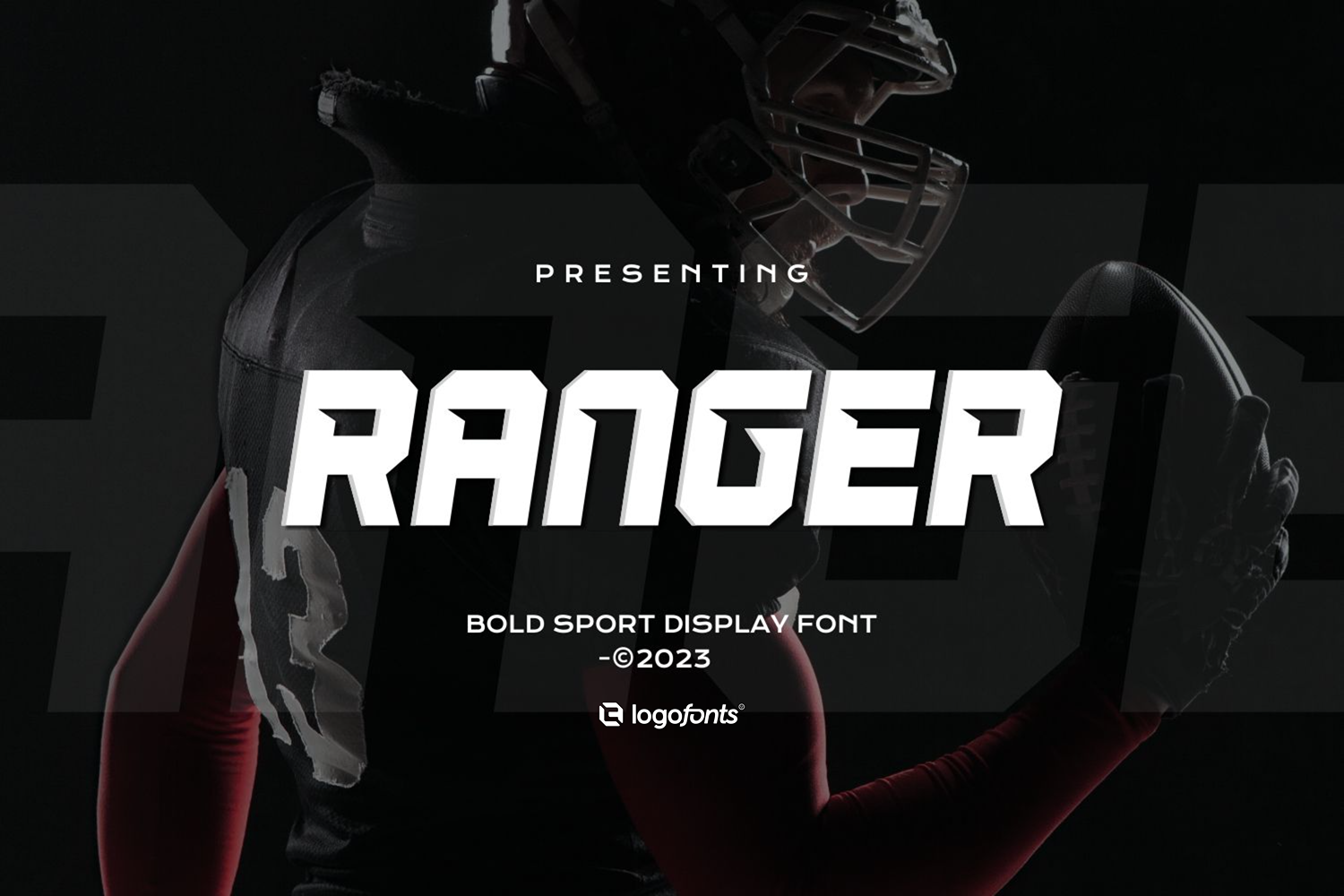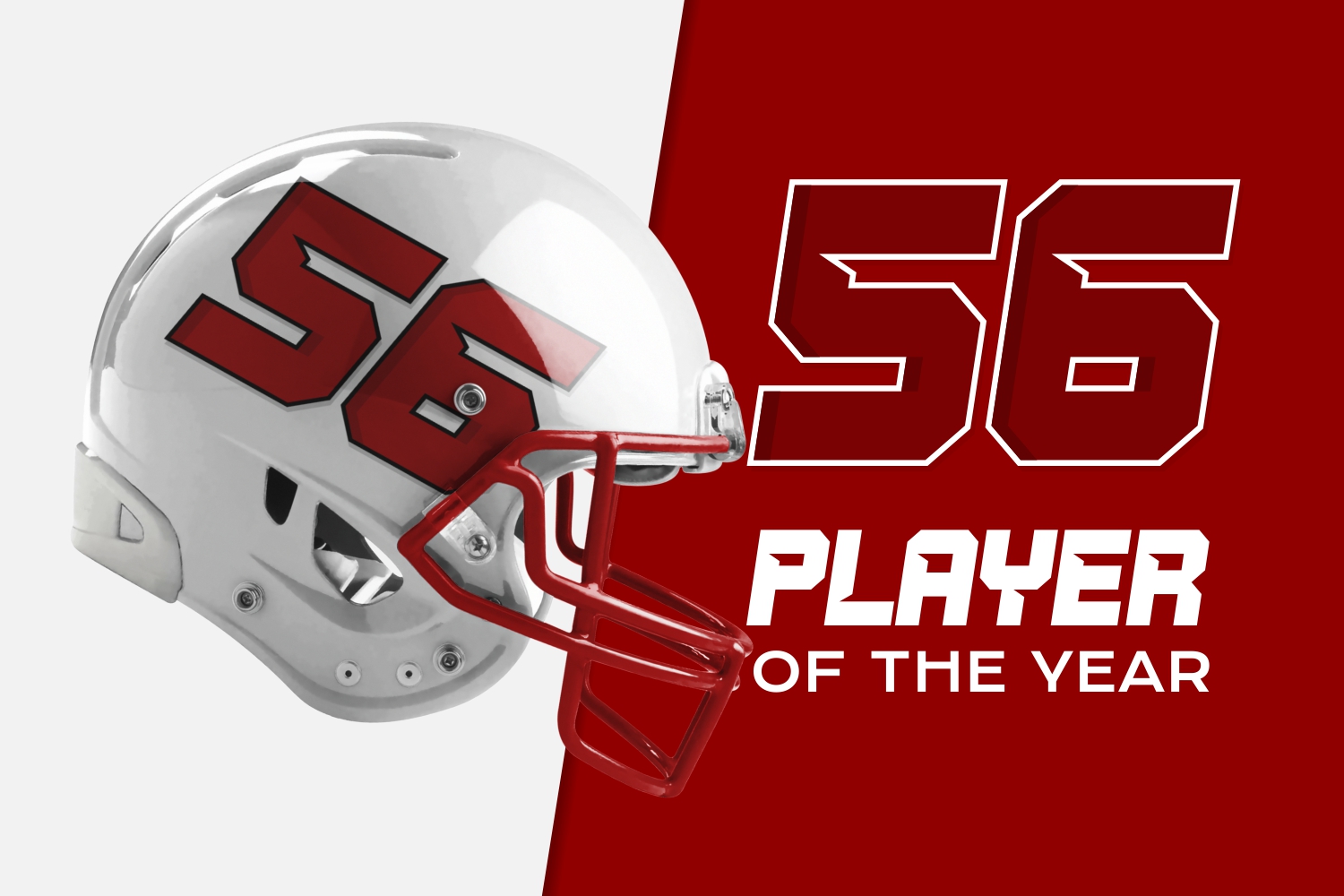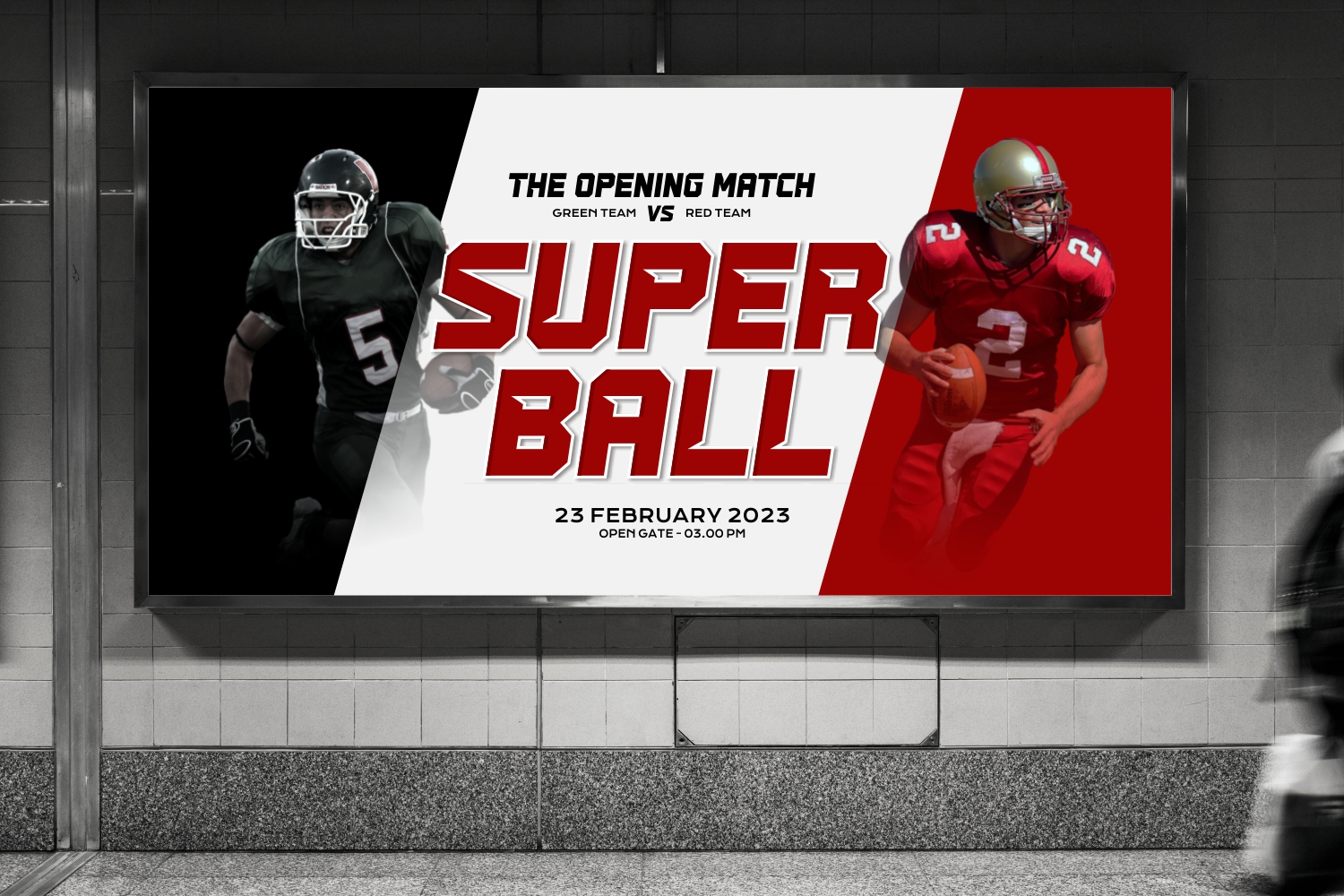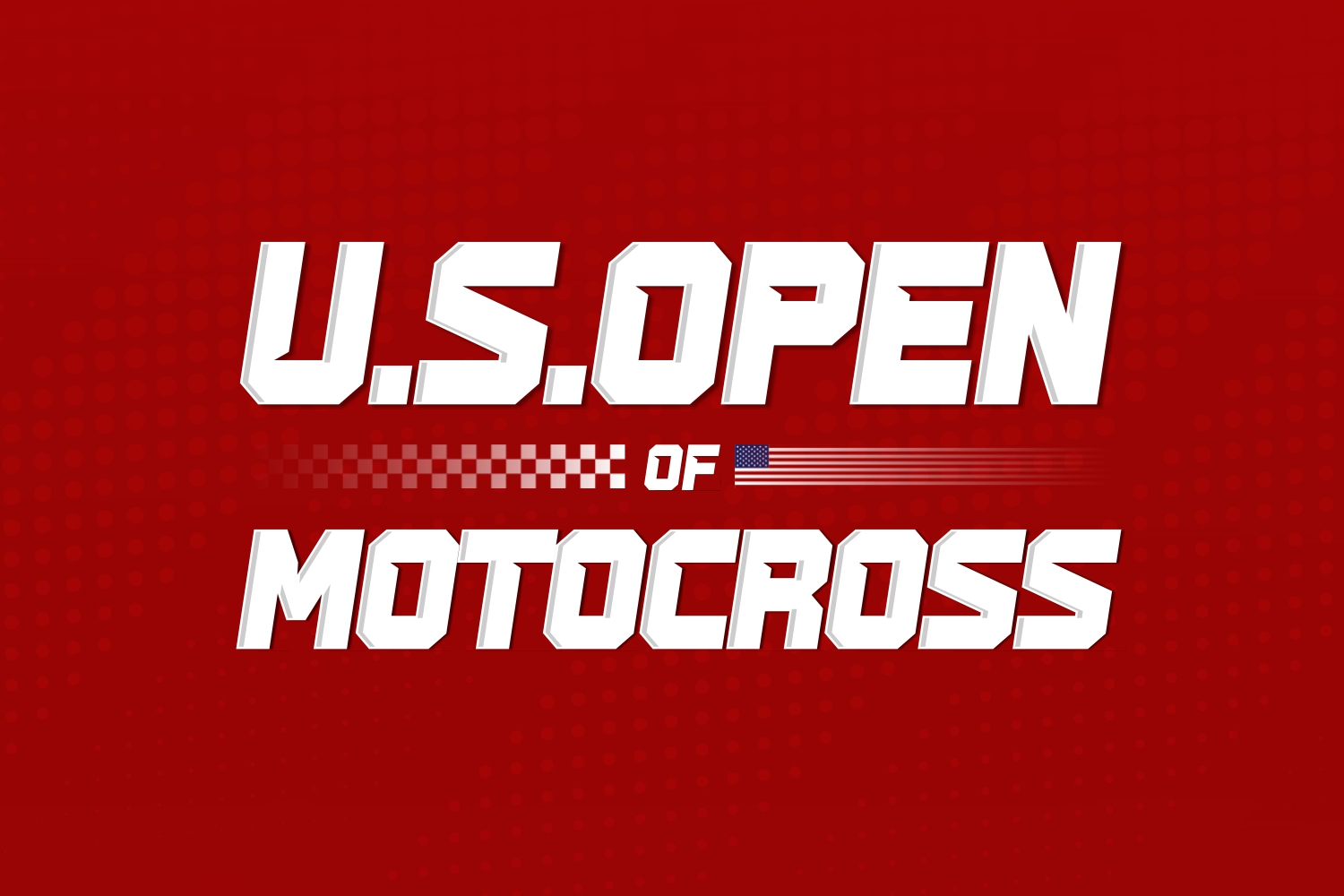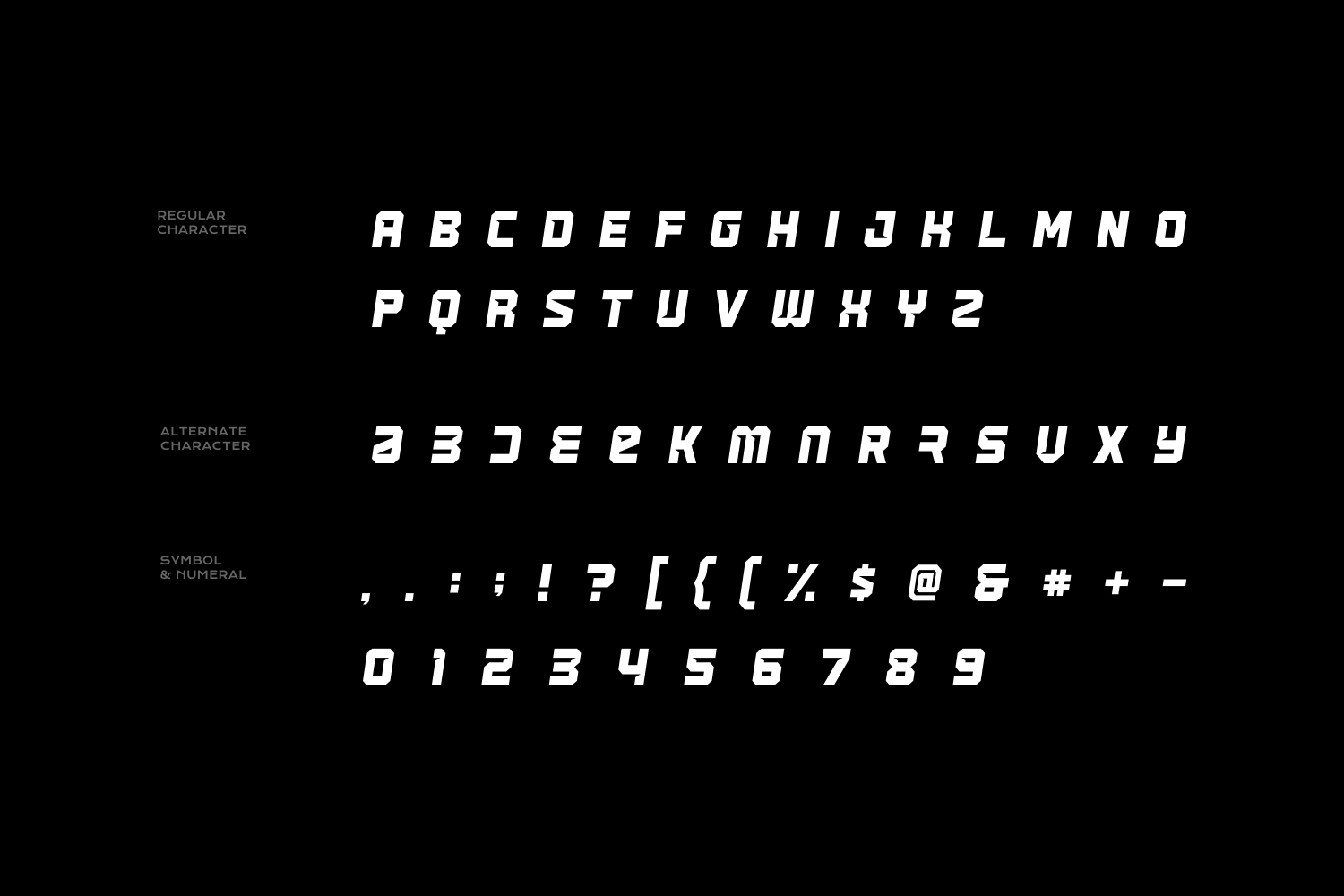
Ranger is a bold, all-caps sport display font designed for high-impact visuals and energetic branding. With its strong angular cuts, geometric construction, and sharp edges, Ranger captures the intensity and power often associated with competitive sports, motorsports, and athletic branding. The font instantly commands attention in posters, jersey numbers, titles, and stadium signage.
Ranger also includes alternate characters, ligatures, and multilingual support, offering flexibility and a wide range of visual options. Its versatile uppercase character set makes it ideal for use in sports team branding, tournament graphics, event merchandise, and digital assets that need a powerful typographic presence.